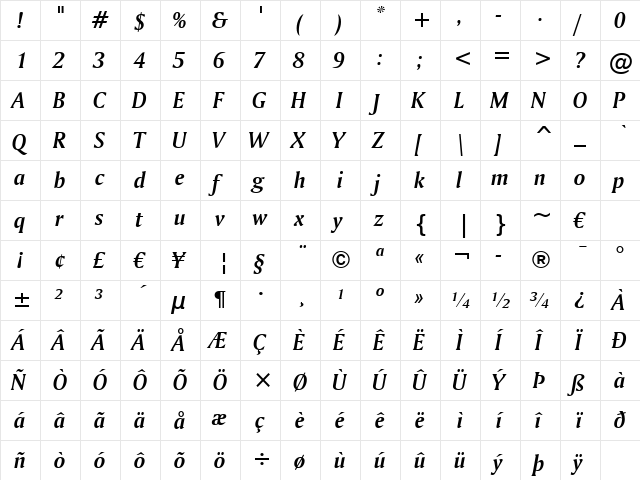
Design Context for Amerigo BT Typeface
Amerigo BT takes a measured approach to typography — its balanced proportions and neutral character make it a reliable workhorse for both digital and print work. Its italic angle brings a sense of urgency and motion to the letterforms. Its bold stroke weight gives it real presence on the page.
Pro Tip: Try Amerigo BT for annotation and caption copy alongside an upright companion — the contrast in angle creates a dynamic but ordered typographic system.